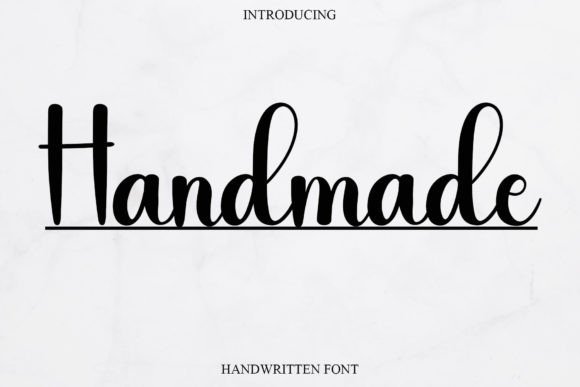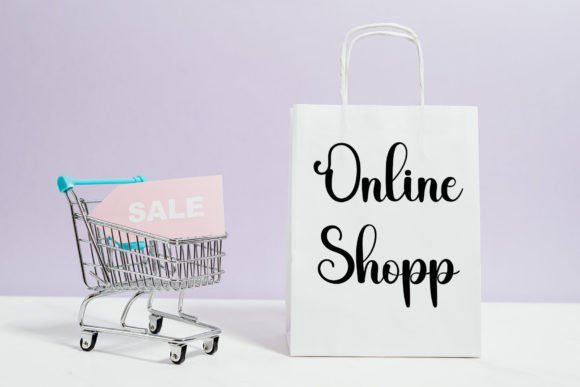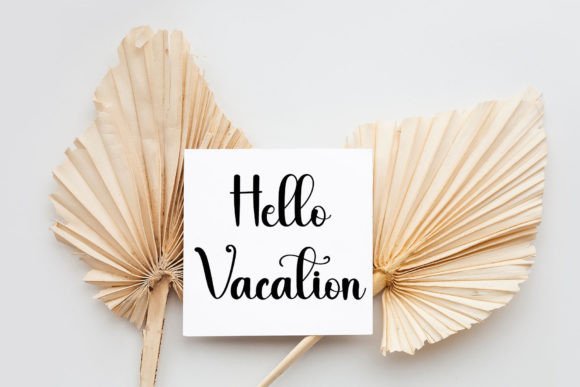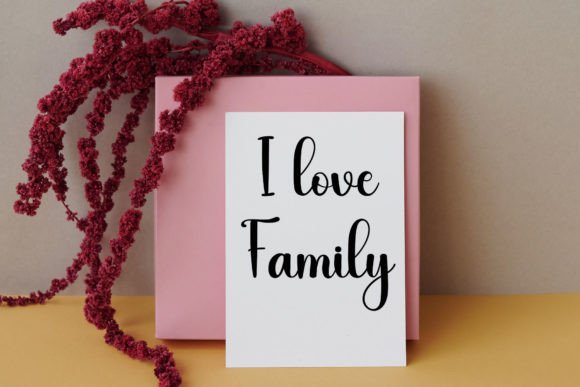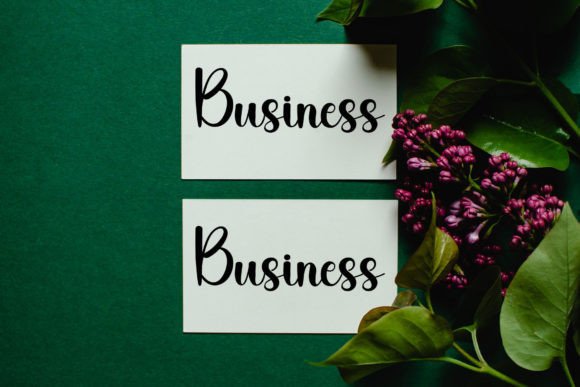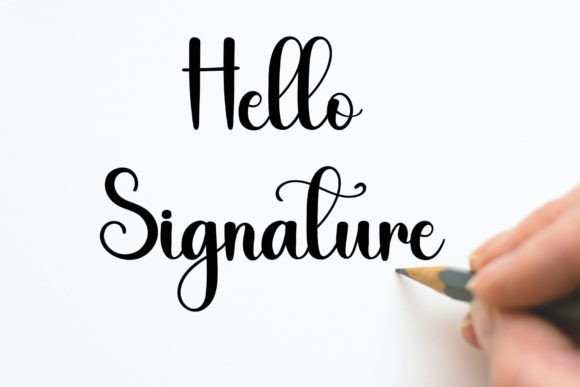
Introducing Handmade, a sweet and beautiful handwritten font designed to add a touch of luxury to your creative projects. With characters that dance along the baseline, this font brings a playful and elegant spark to any design endeavor you wish to undertake.
The handwritten style of Handmade adds a personal and authentic feel to your text, making it a charming choice for a variety of projects. Whether you’re working on invitations, greeting cards, social media graphics, or any other design, this font enhances the visual appeal with its delightful and dynamic characters.
The dancing baseline in Handmade contributes to its uniqueness, bringing a sense of movement and liveliness to your text. This feature adds a luxurious touch, making your design projects stand out with flair and sophistication.
In summary, Handmade is more than just a font; it’s a creative tool that infuses your designs with sweetness and luxury. Download Handmade now and explore how it can add a beautiful and playful spark to your projects. With its charming handwritten style and dancing baseline, Handmade is ready to bring a touch of elegance to your creative endeavors.